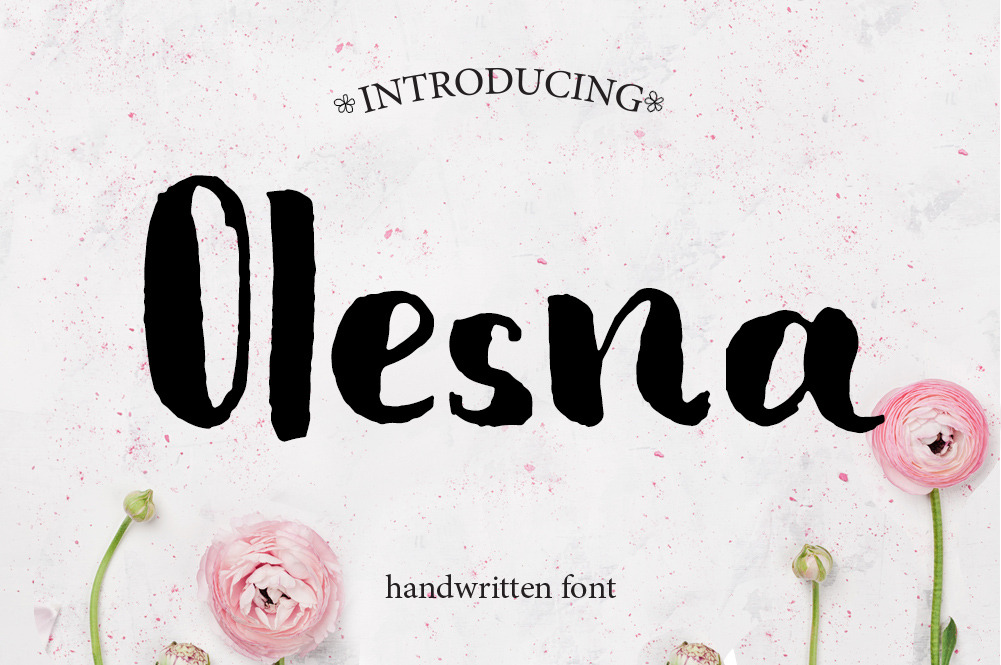
Olesna - Sans Serif Font
A hand-written font designed to create entries in the diary or as occasional comments. It is universal and can be used in different projects where manual style is required. Suitable for the design of posters, websites, T-shirts, magazines, etc. You will find a font in OTF format. It is absolutely necessary to install it into your system without using additional software.